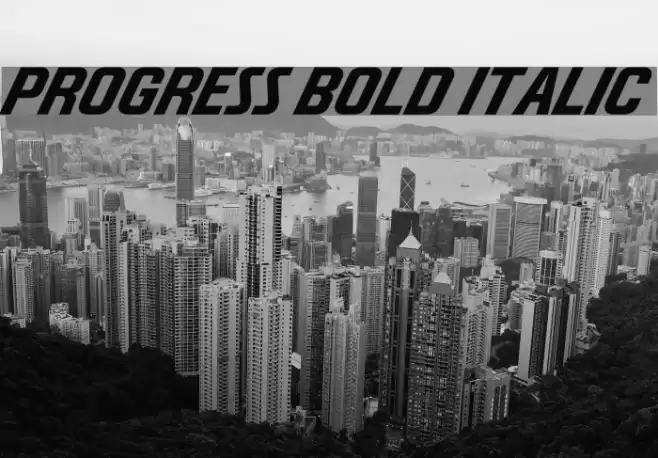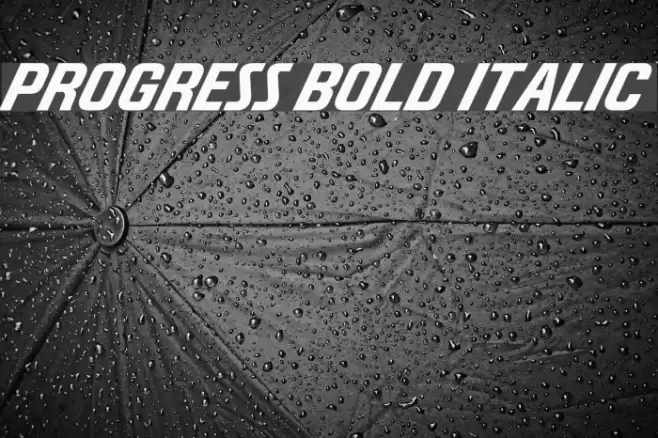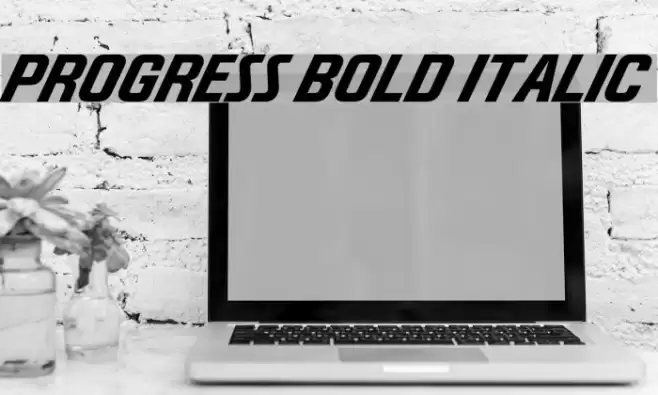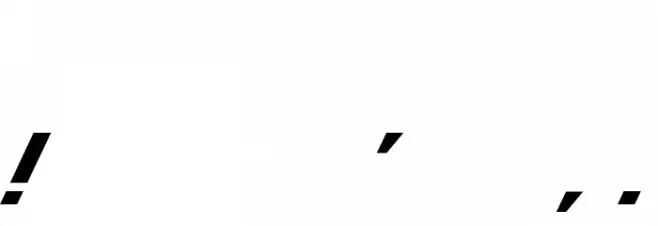
Progress Bold Italic Font
Progress Bold Italic Description
This font features a bold and italicized style, characterized by its strong, dynamic presence. The letters are slanted, giving a sense of motion and urgency. The strokes are thick and consistent, providing a robust and impactful appearance. The design is clean and modern, with a slight geometric influence that enhances its readability. The uppercase and lowercase letters maintain a uniform style, ensuring cohesion across different text sizes. The special characters are designed to match the boldness and slant of the alphabet, making them suitable for various contexts.
A bold, italicized font with a modern, dynamic style from Uncategorized fonts.